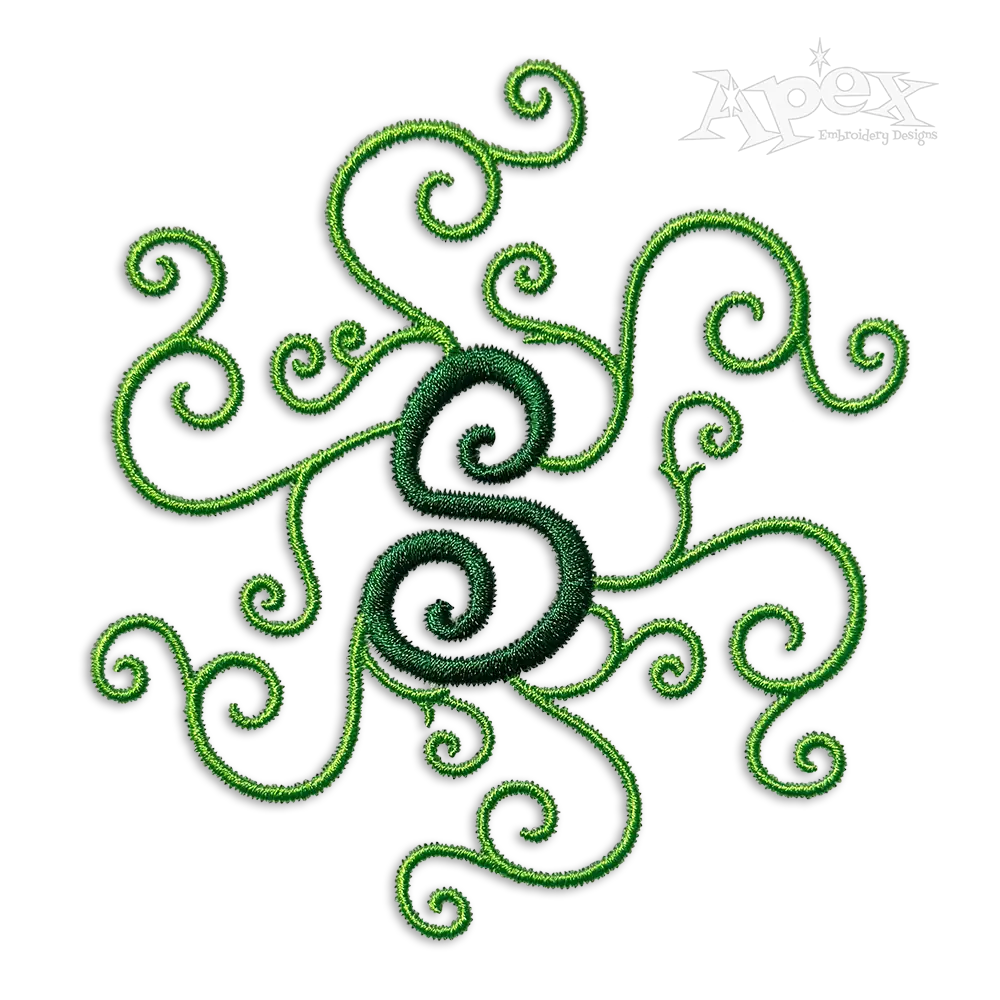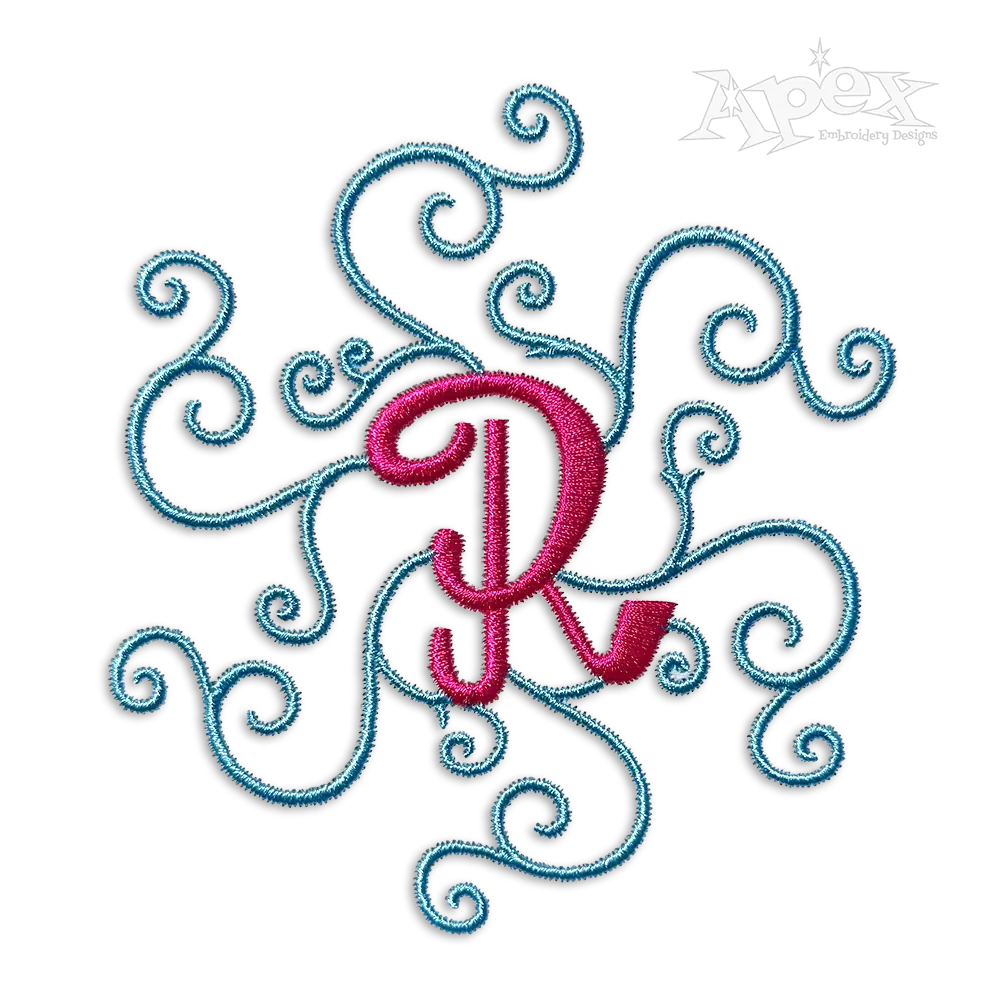
Snow Scroll Monogram Font
When the first frost gathers along windowpanes, it leaves behind swirling ribbons of ice that feel both majestic and quietly poetic—a fleeting winter magic that inspired the creation of the Snow Scroll Monogram Font. Designed from an artisan digitizer’s perspective, this font balances the regal weight of traditional calligraphy with the whimsical, crystalline grace of frozen scrollwork. The two-color choreography allows you to pair icy silvers with deep evergreen, champagne with velvet red, or subtle tone-on-tone hues, transforming any base fabric into a canvas of dimensional texture, sculptural relief, and timeless winter elegance.
Digitized with meticulous attention to stitch density and underlay architecture, every size has been engineered individually to ensure smooth thread transitions and crisp, ripple-free borders on both multi-needle and single-needle embroidery machines. This two-color collection arrives in four versatile, high-impact sizes:
Project Ideas for Snow Scroll Monogram Font
To highlight the sweeping grace of the Snow Scroll Monogram Font, deliberate placement brings out its most striking qualities:
- Corner Diagonal: Set the 2.5-inch or 3.5-inch monogram at a 45-degree angle in the corner of hemstitched dinner napkins, keeping the scrollwork oriented toward the outer edge.
- Center Chest & Pocket Crest: Position the 3.5-inch monogram centered on robe fronts, lounge shirts, or seasonal jackets for a classic bespoke emblem feel.
- Focal Centerpiece: Center the 5-inch or 7.5-inch size on throw pillows or bed linens, allowing ample breathing room around the outer flourishes to emphasize the design's majestic proportions.
- Stocking Cuffs & Borders: Align the monogram precisely along the horizontal midline of cuffs, letting the vertical tail flourishes gently bridge cuff and body.
Snow Scroll Monogram Font Craft & Letterform Details
True luxury embroidery relies on how the needle paints with thread, and the Snow Scroll Monogram Font was digitized specifically to harness the luminous sheen of high-luster rayon and polyester. The primary letterforms feature robust, fluid column widths with carefully plotted directional stitch angles that capture the ambient light from multiple perspectives. Intertwined with the central monogram are the secondary scroll accents—feathered ice curls that twist and coil like frosty winter winds.
Rather than simply placing one element over another, the two-color sequence is drafted with calibrated pull compensation and optimized underlay grids. This prevents heavy stiffness and bunching, allowing the decorative scrolls to drape around the core alphabet with airy dimension and flawless registration. The result is a satin stitch alphabet that stitches out smoothly, maintaining feather-light softness on delicate linens while delivering bold, crisp clarity on textured heavier weaves.